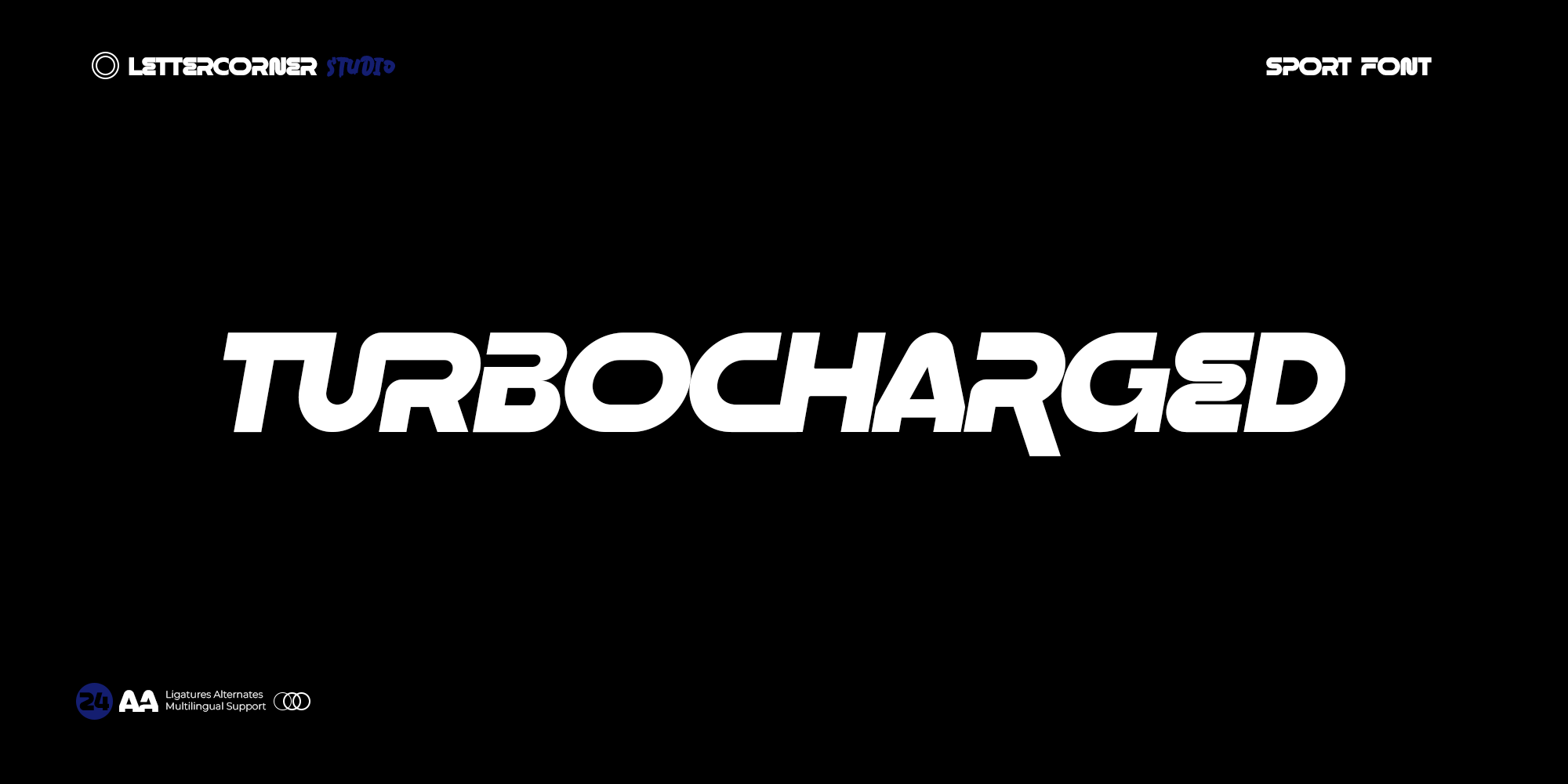
Turbocharged — Raw Power Display Font
There is a moment just before a turbocharger kicks in — a breath, a build, and then an explosion of force that pins you back in your seat. Turbocharged is that moment, captured in type. Bold, aggressive, and unapologetically loud, this is a font that doesn’t ease into a room. It arrives.
Built on letterforms that are thick, muscular, and full of mechanical character, Turbocharged carries the visual weight of performance engineering — the kind of typography you find on garage walls, race liveries, and the hoods of machines that were built to be pushed to their limits. Every stroke feels pressurized, every letter ready to burst forward.
With 266 glyphs including broad Latin character support, Turbocharged is designed for large-scale applications where presence is non-negotiable. It hits hard in headlines, dominates on posters, and commands attention on any surface it touches — physical or digital.
Available in 2 styles:
• Regular — heavy, grounded letterforms with the stance of a V8 at idle — massive, composed, and full of latent energy
• Italic — the same raw power, now leaning forward and wide open, as if the boost just hit and everything blurs at the edges
Perfect for motorsport and automotive branding, streetwear, gaming, energy products, sports campaigns, and any project that needs to feel like it was built in a garage, tuned on a track, and unleashed on the world — full throttle, no apologies.